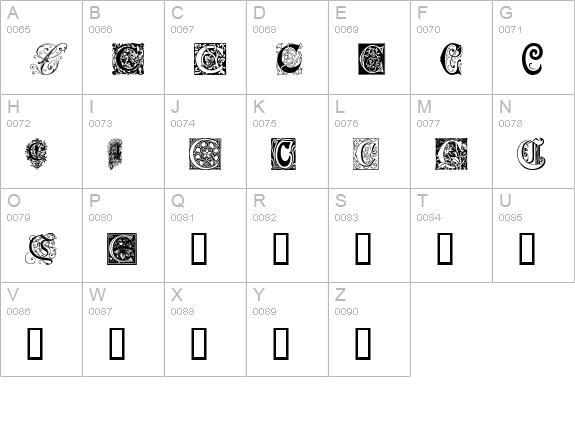
Ornamental Initials C font is a stunning and versatile typeface that exudes elegance and sophistication. With its intricate details and ornate design, this font is perfect for adding a touch of refinement to any project. The ornamental initials in this font are beautifully crafted, making them a striking addition to any text or design. Best of all, Ornamental Initials C font is completely free to download at FontsMarket.com. This means you can easily add a touch of luxury to your projects without breaking the bank. Whether you're creating invitations, logos, or any other creative work, Ornamental Initials C font is sure to make a lasting impression. Download this exquisite font today and elevate your designs to new heights of beauty and elegance.